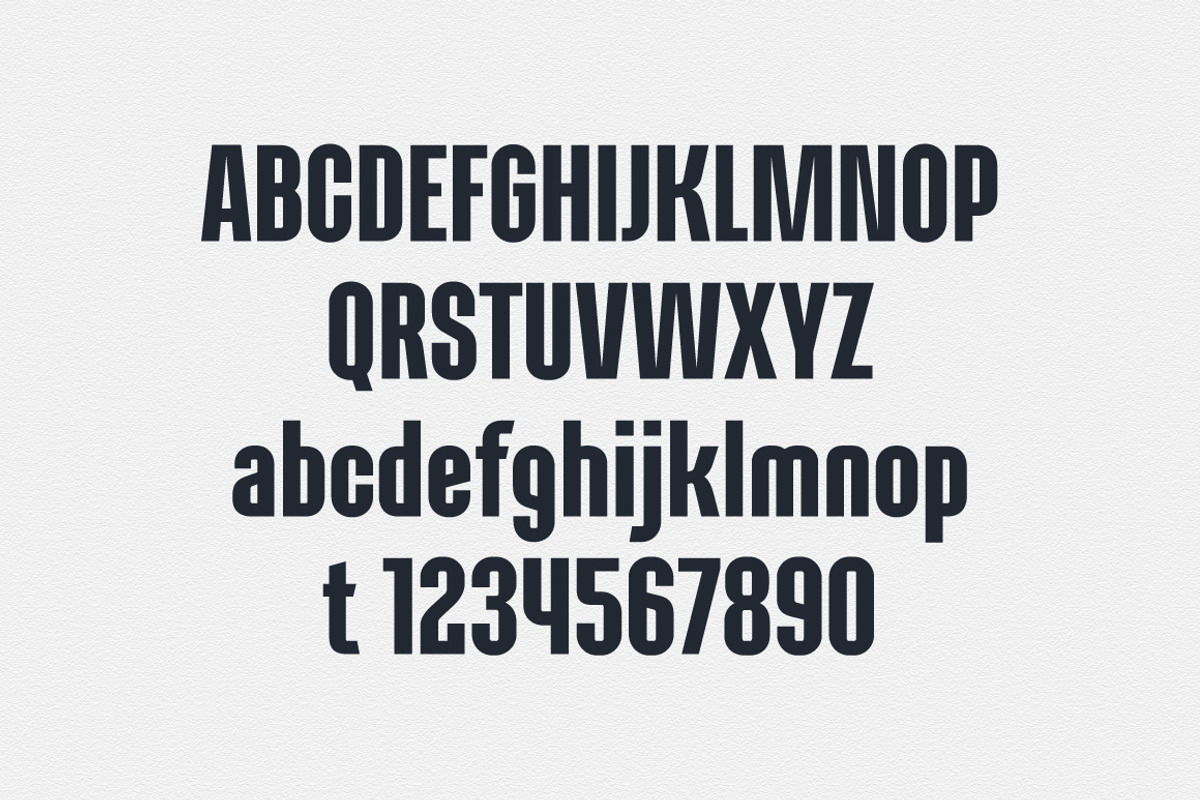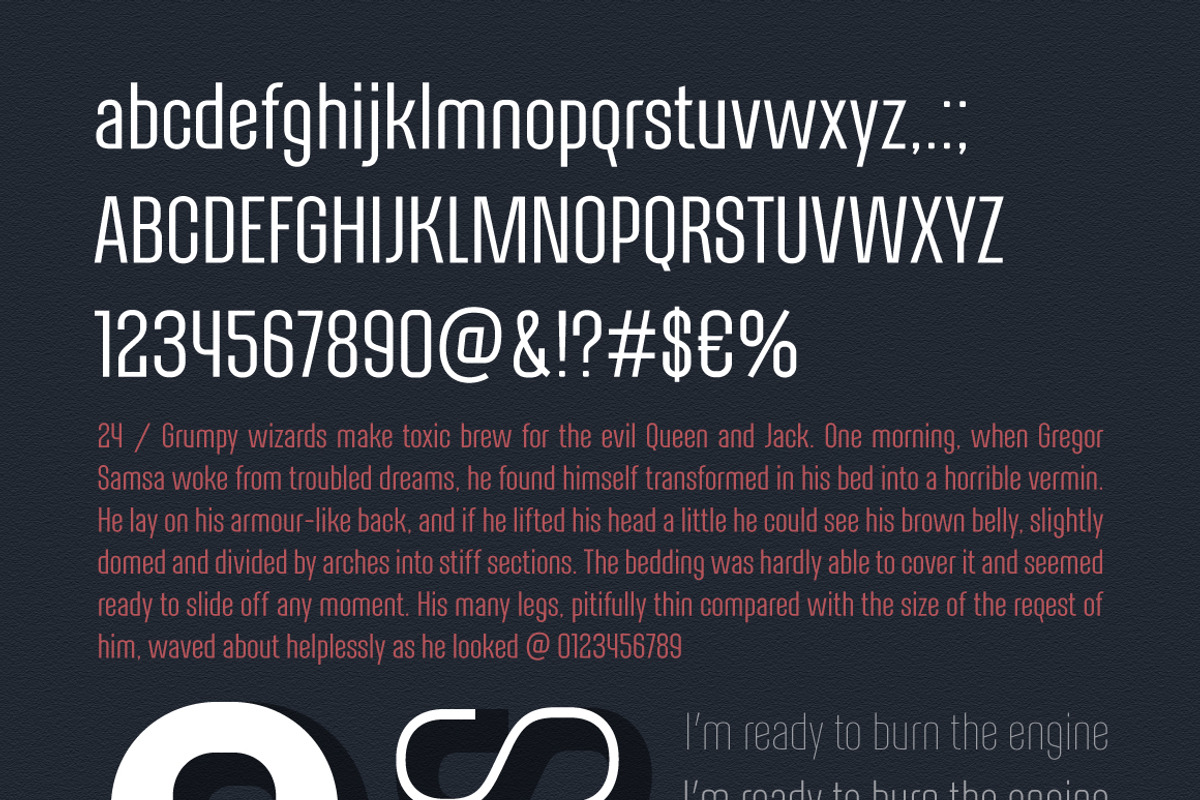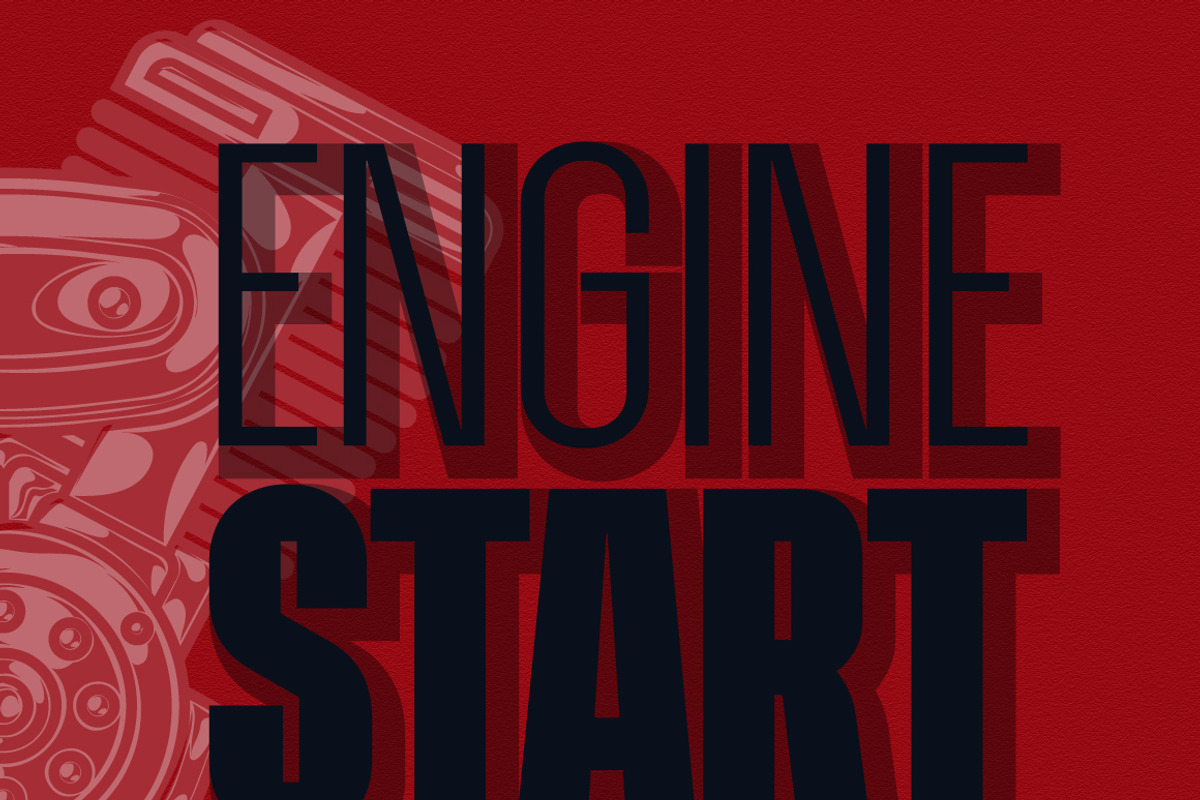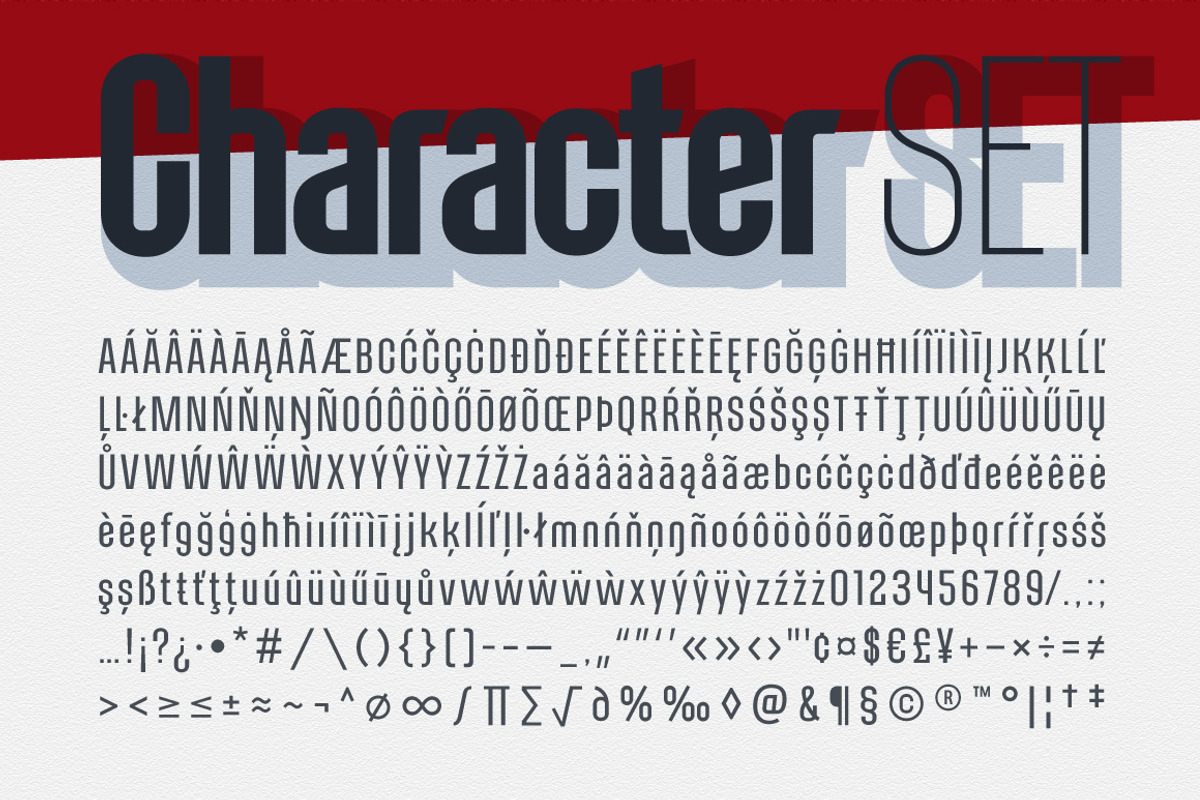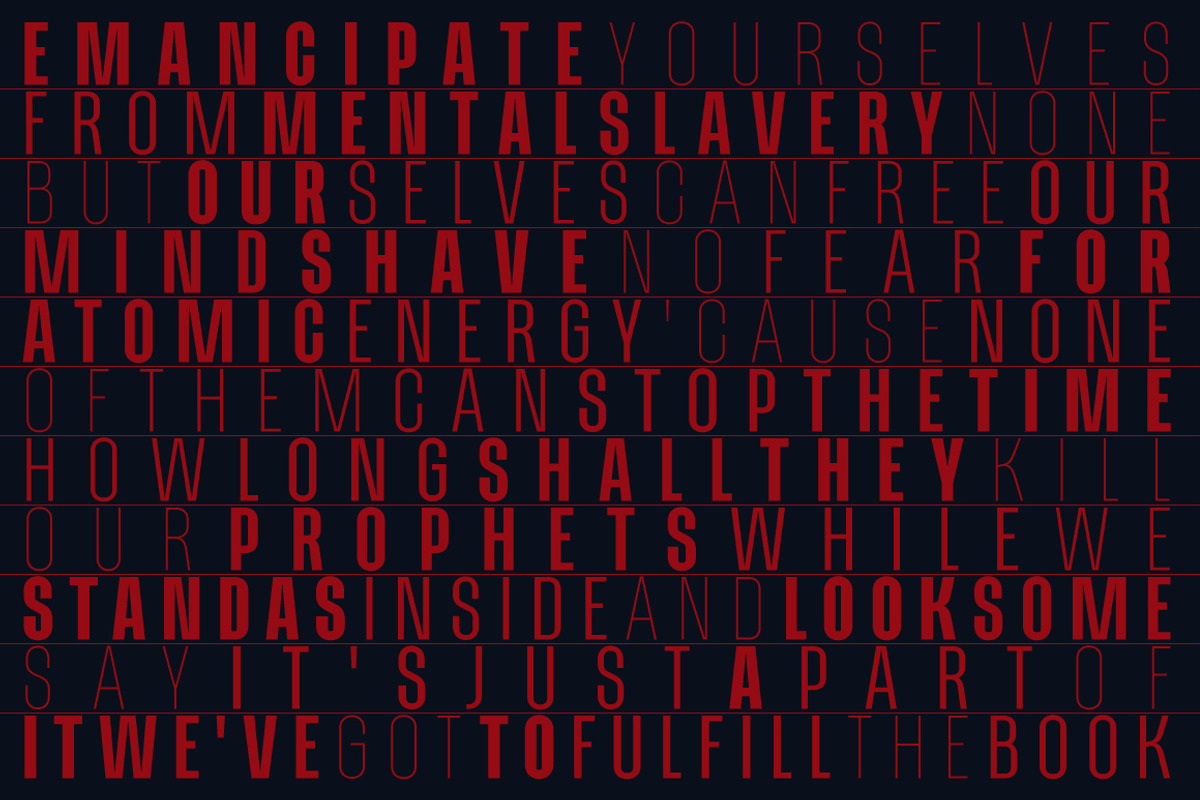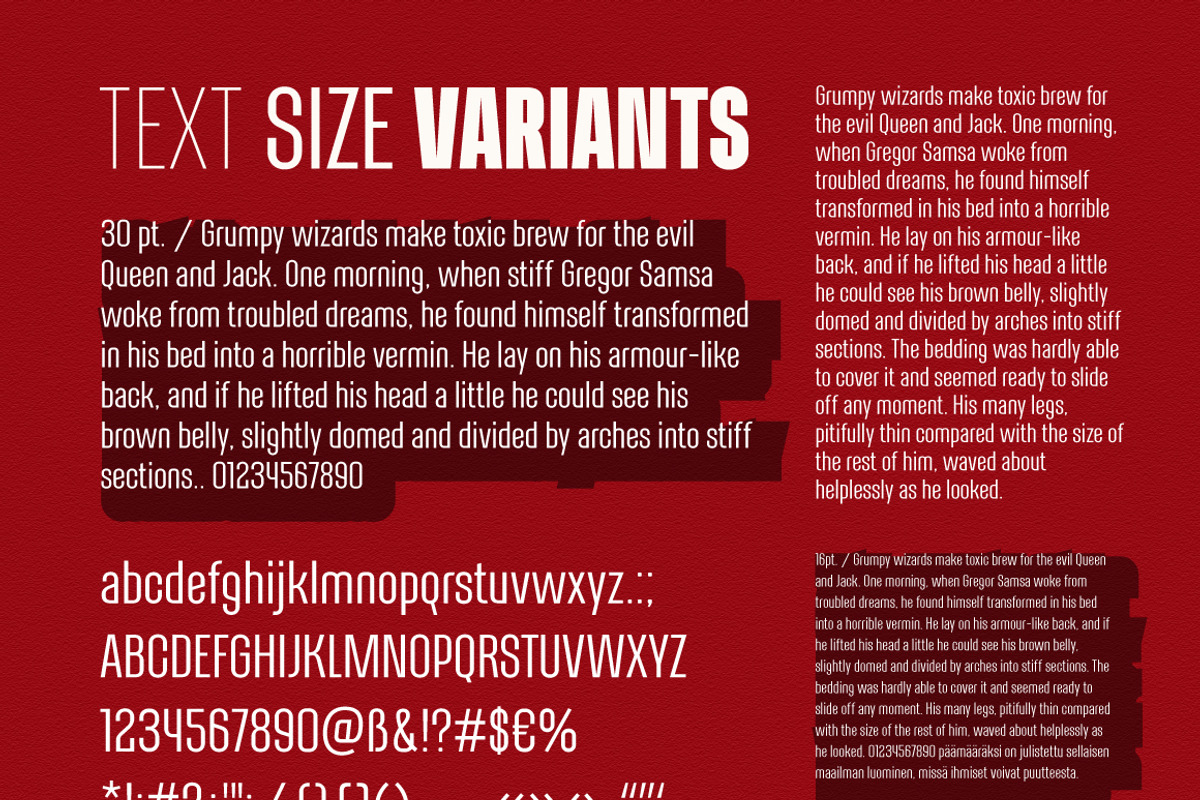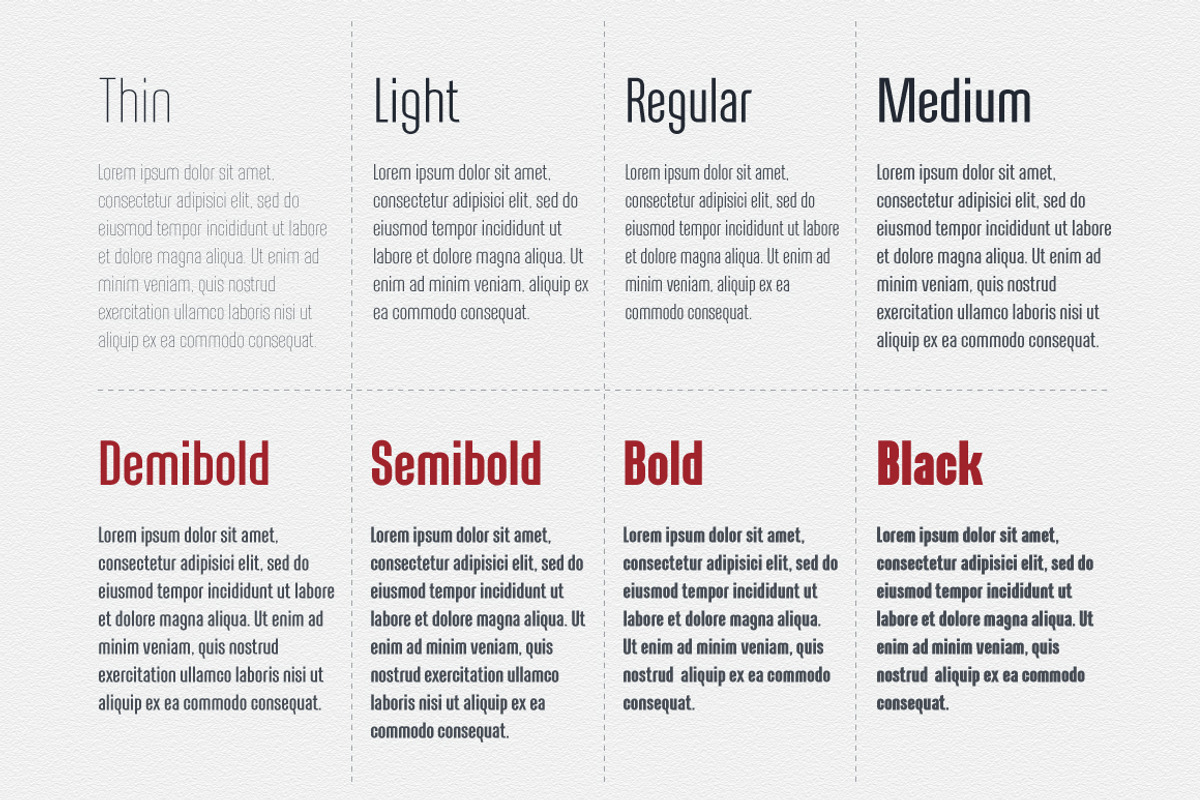
Alterhard Condensed Strict Font
The Alterhard font combines the unique artistry of great styles of the early twentieth century and at the same time looks organically among the moderns. This allows you to use the font Alterhard in almost any field of design such as corporate identity, typography, posters, web design and other design scopes.
In the set there are 6 font sizes, which provides a rich typography.
If you need a strict, but at the same time artistic Artnoova font of your choice.
Font supports Latin and most European language characters.
Alterhard Condensed Strict Font by popskraft fits naturally into Branding, posters, packaging, typography.